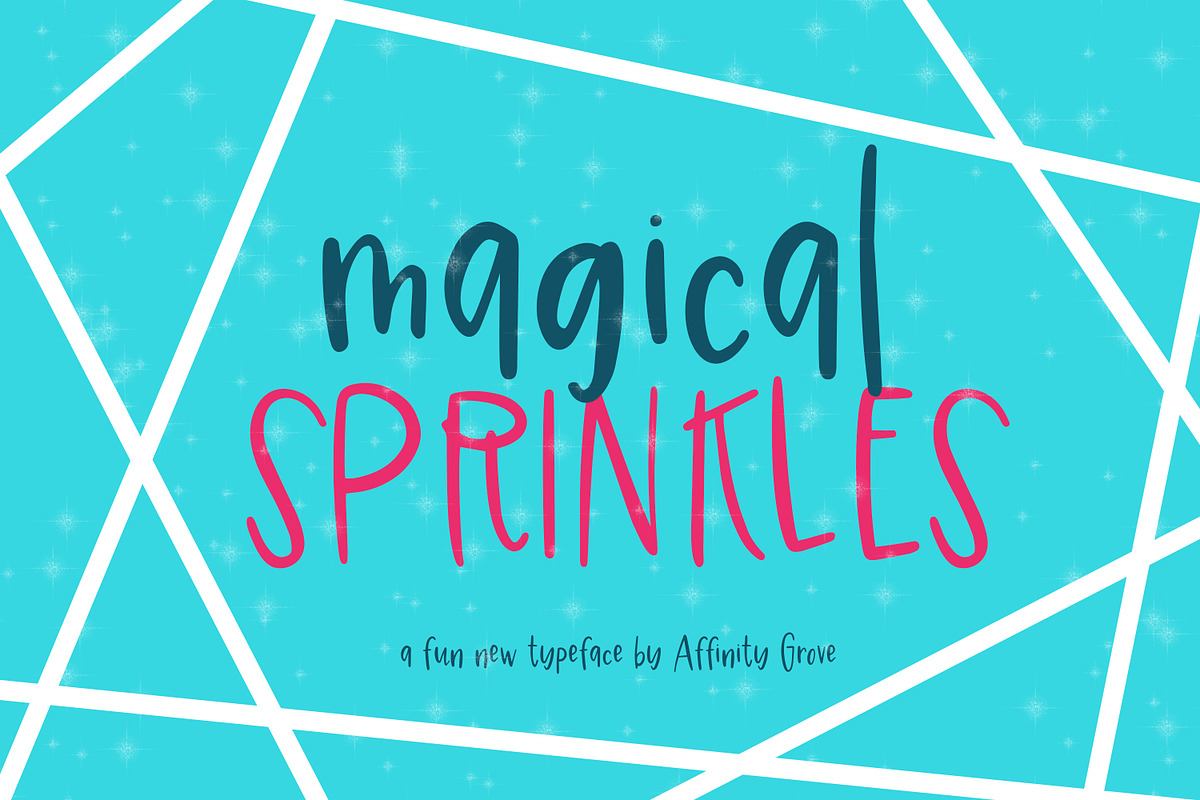
Magical Sprinkles Font Free Download is a whimsical and cheerful typeface that brings a playful, candy-coated charm to your designs. With its bubbly curves and sprinkle-inspired accents, this font is perfect for birthday invitations, kids’ party decor, sweet shop branding, and anything that needs a little extra sparkle and fun. It’s the ideal choice for projects full of color, joy, and imagination.
Add a dose of sweetness to your work with Magical Sprinkles Font Free Download and create designs that feel like a celebration in every letter. It’s a must-have for creatives looking to sprinkle a little magic into their typography.